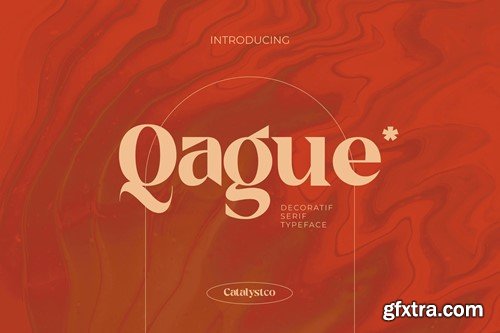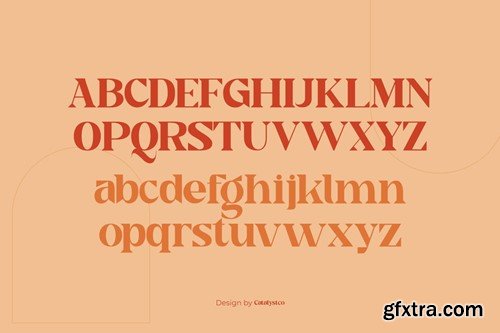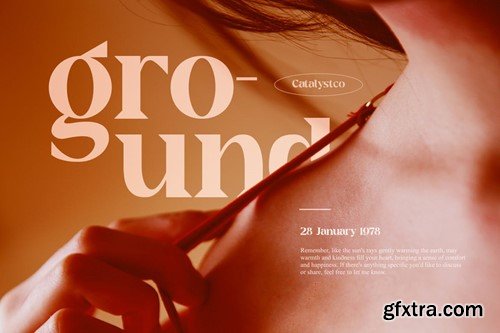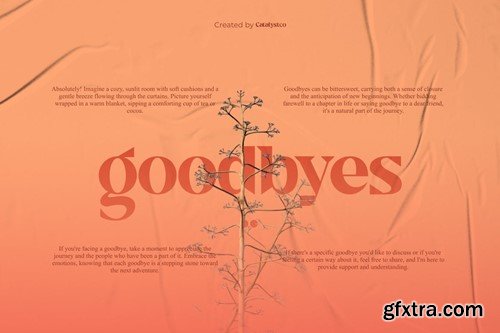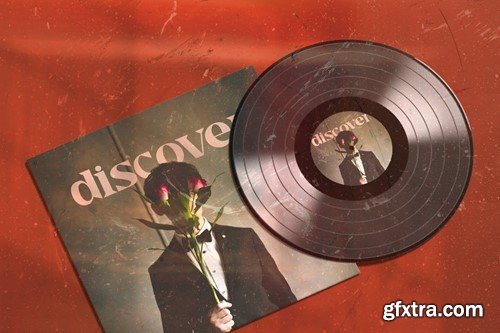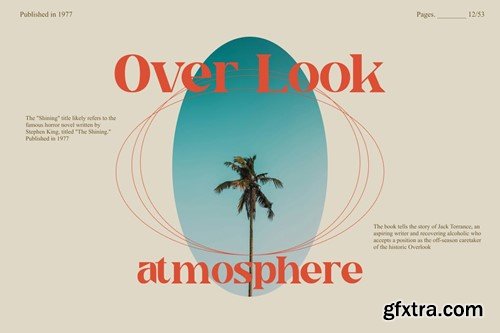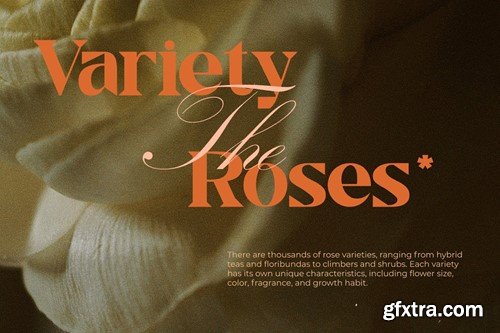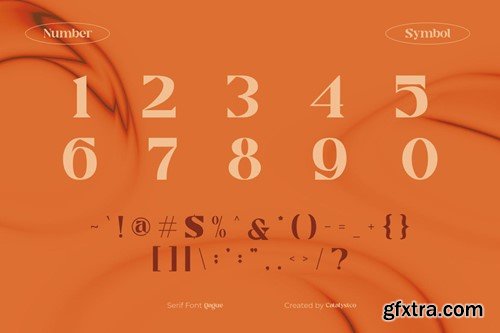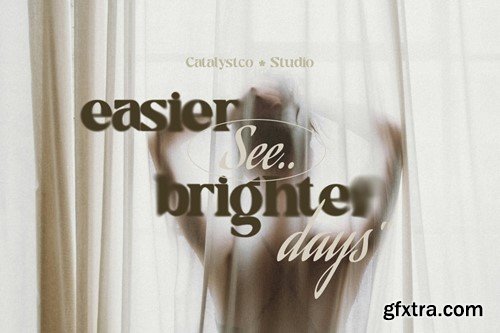
Qaque Decorative Serif Font J494LNE
Qaque Decorative Serif Font
Qaque Decorative Serif Font typeface excellent used for the manufacture quote text, logotype, header magazine, and many more.
• Ligatures & Alternate
• Numeral & Punctuations